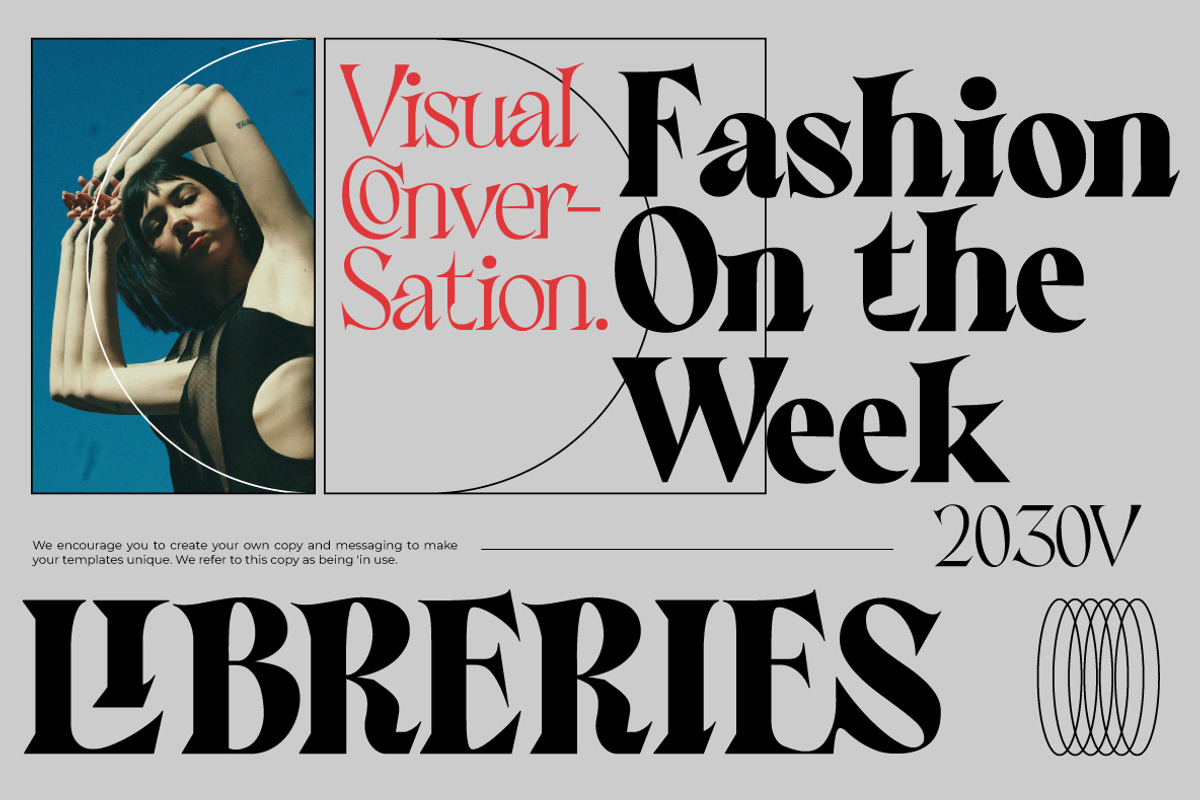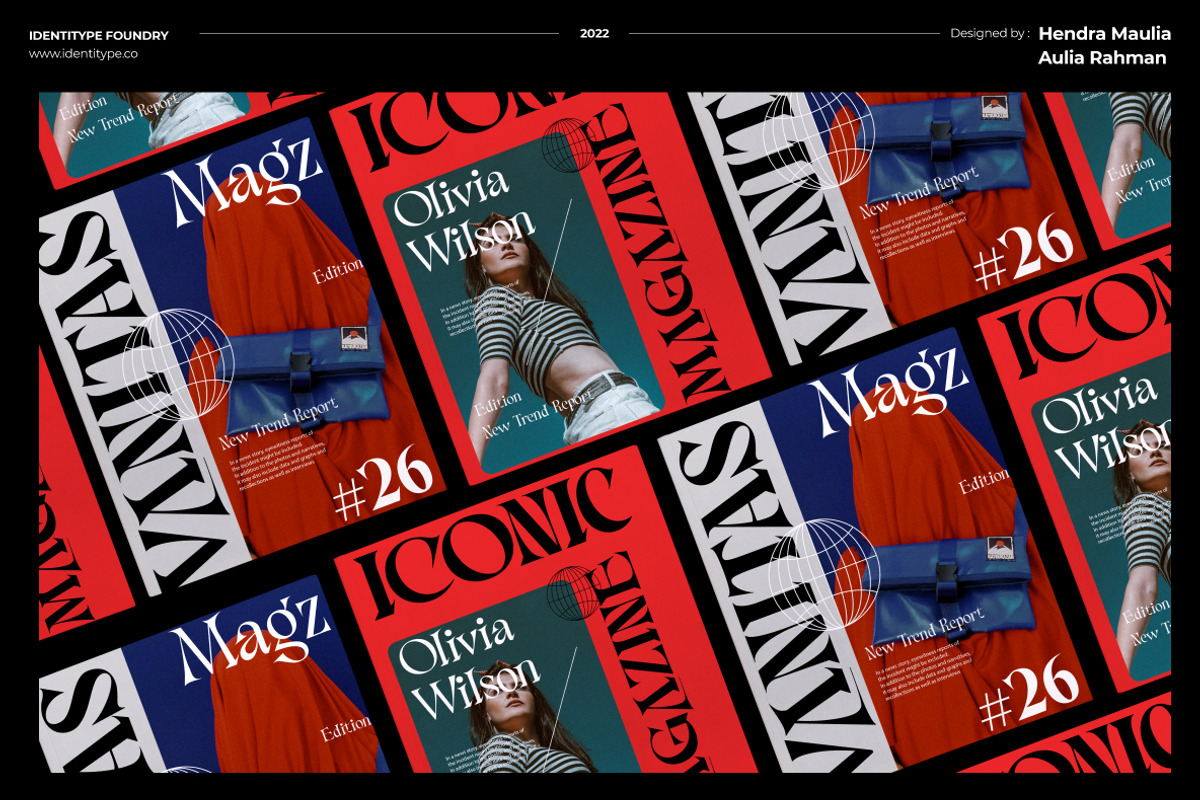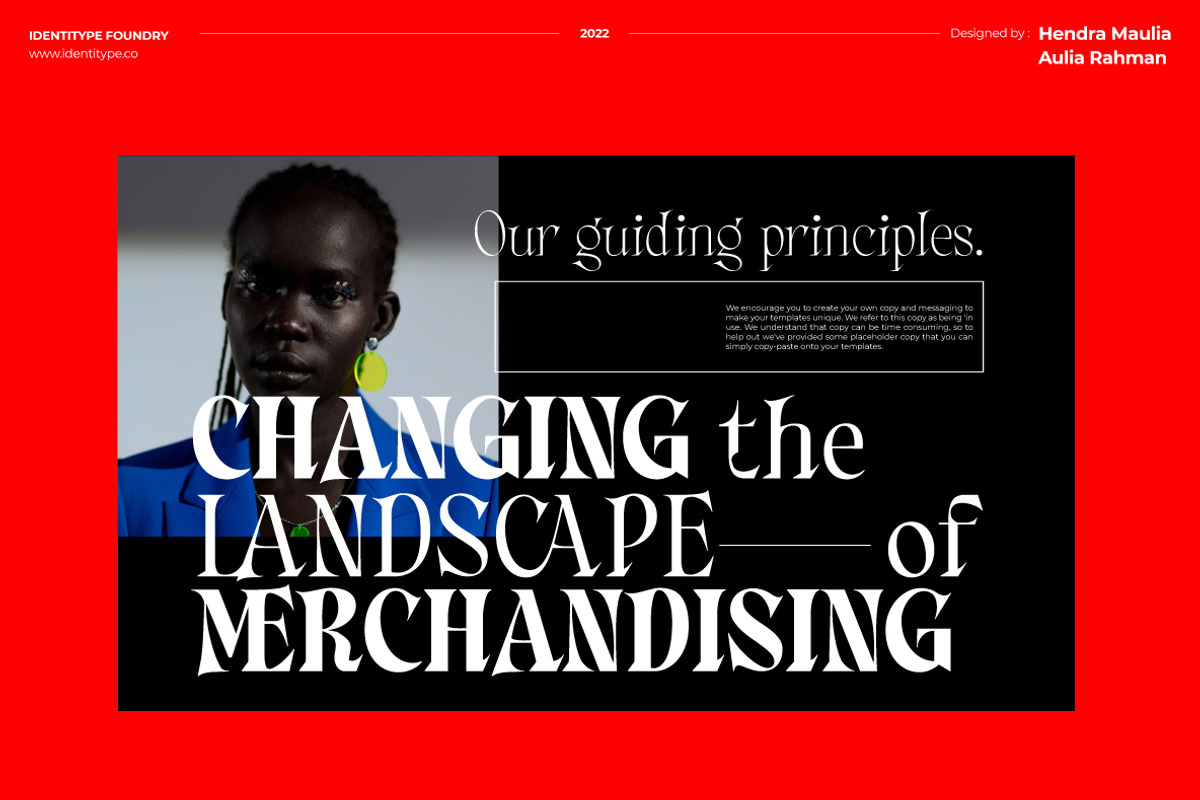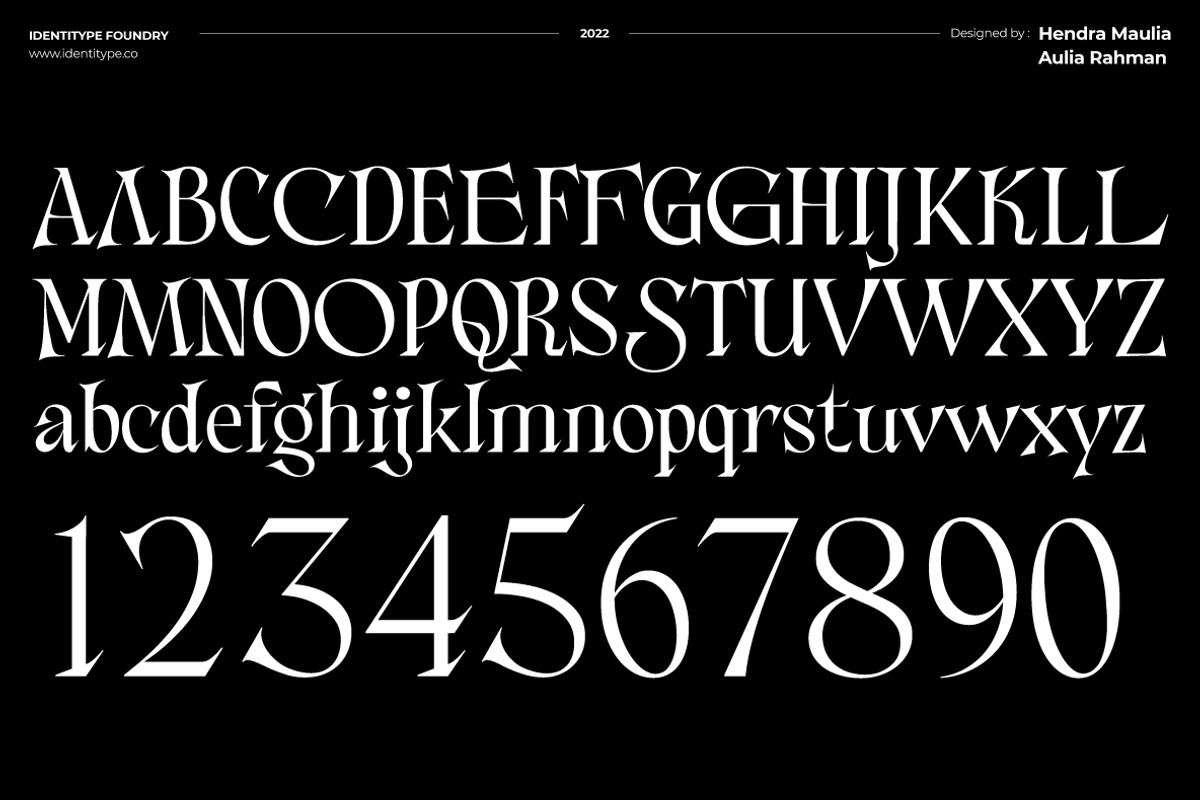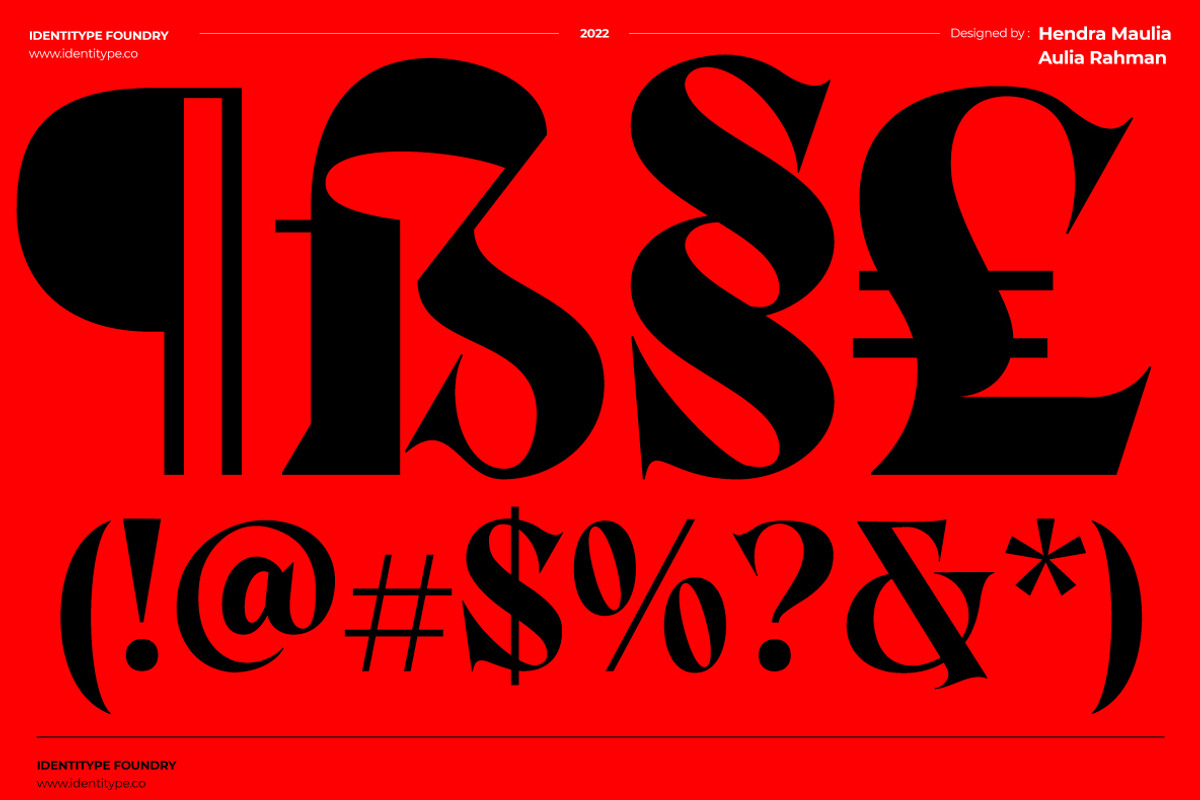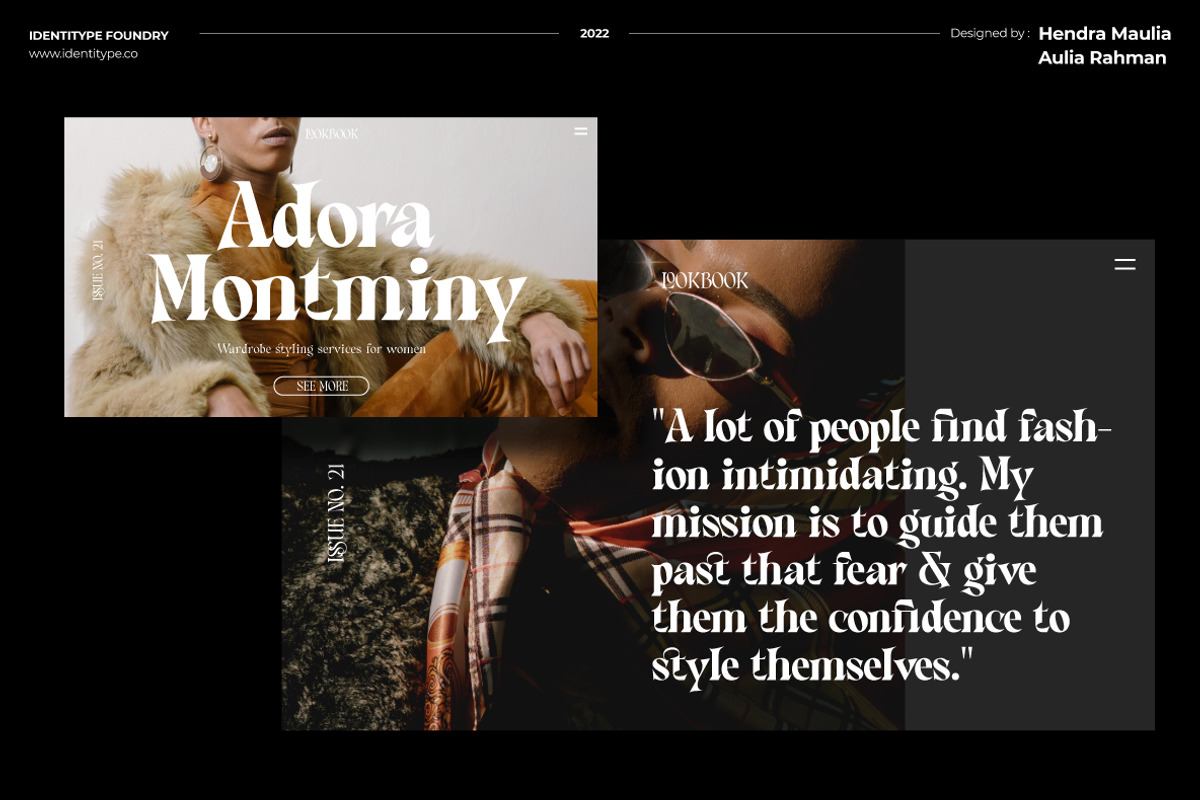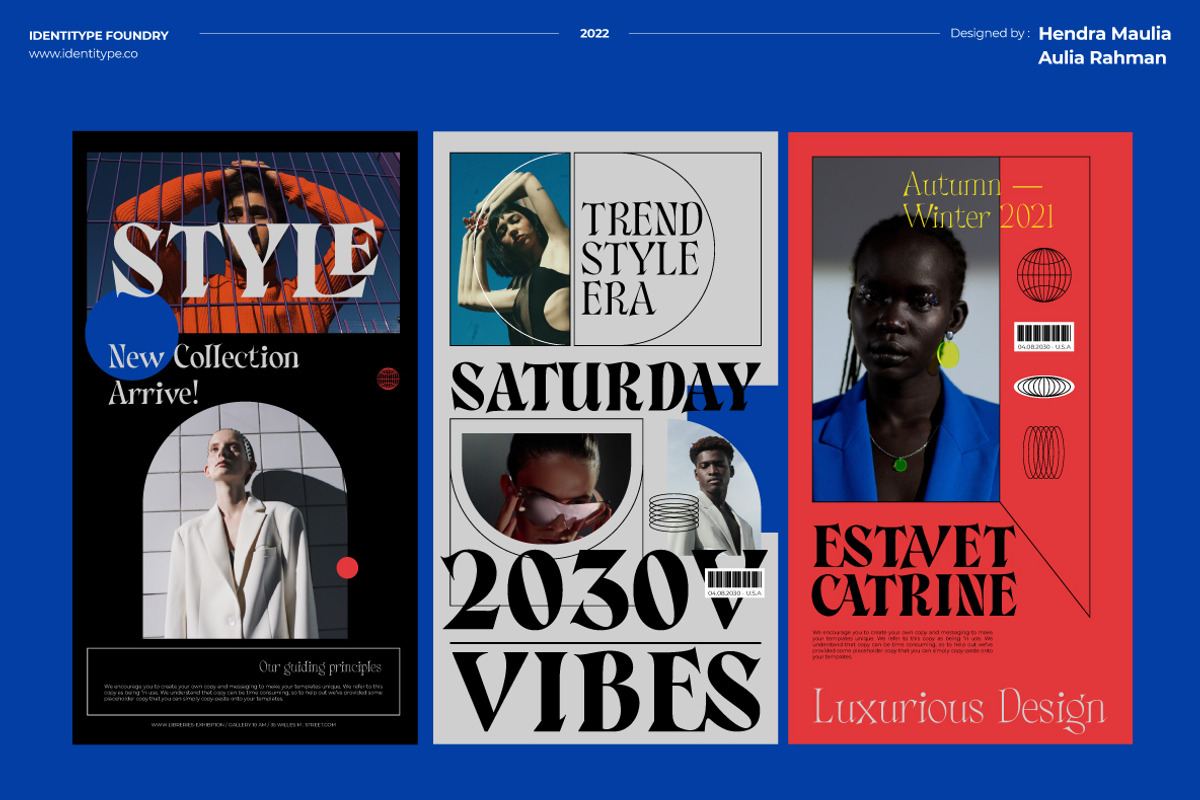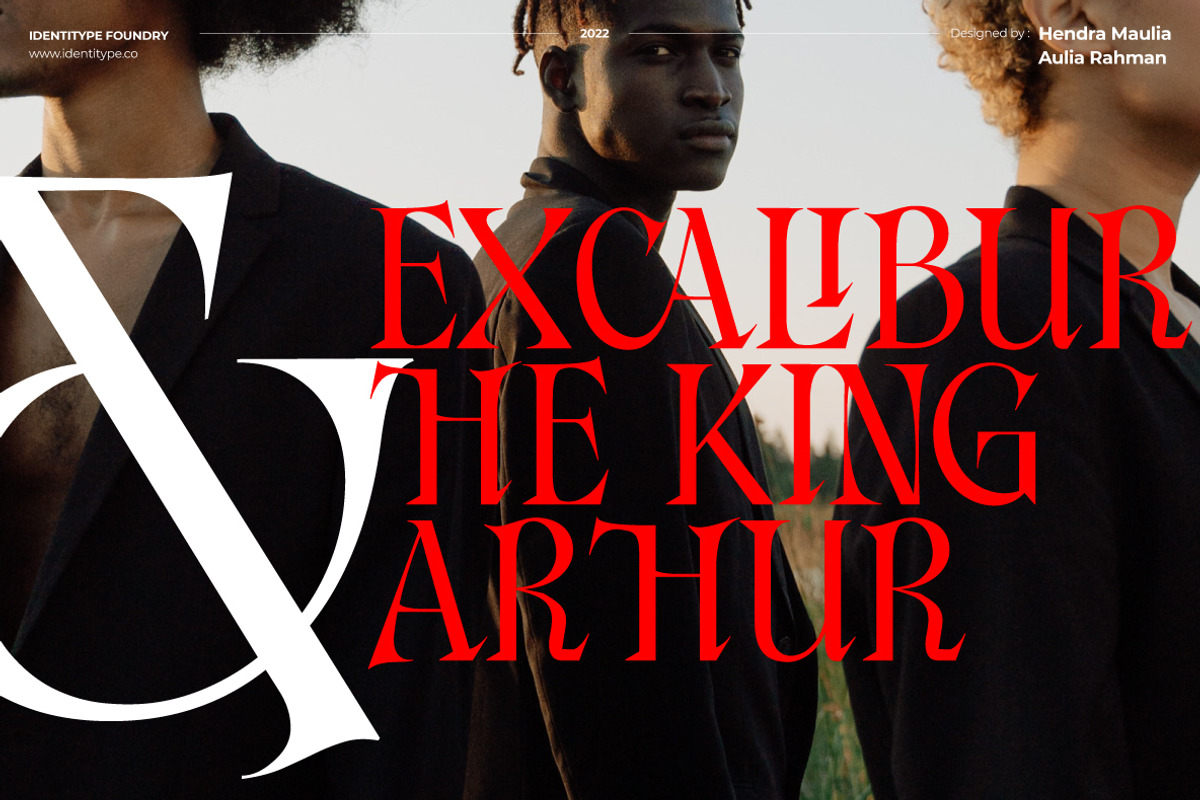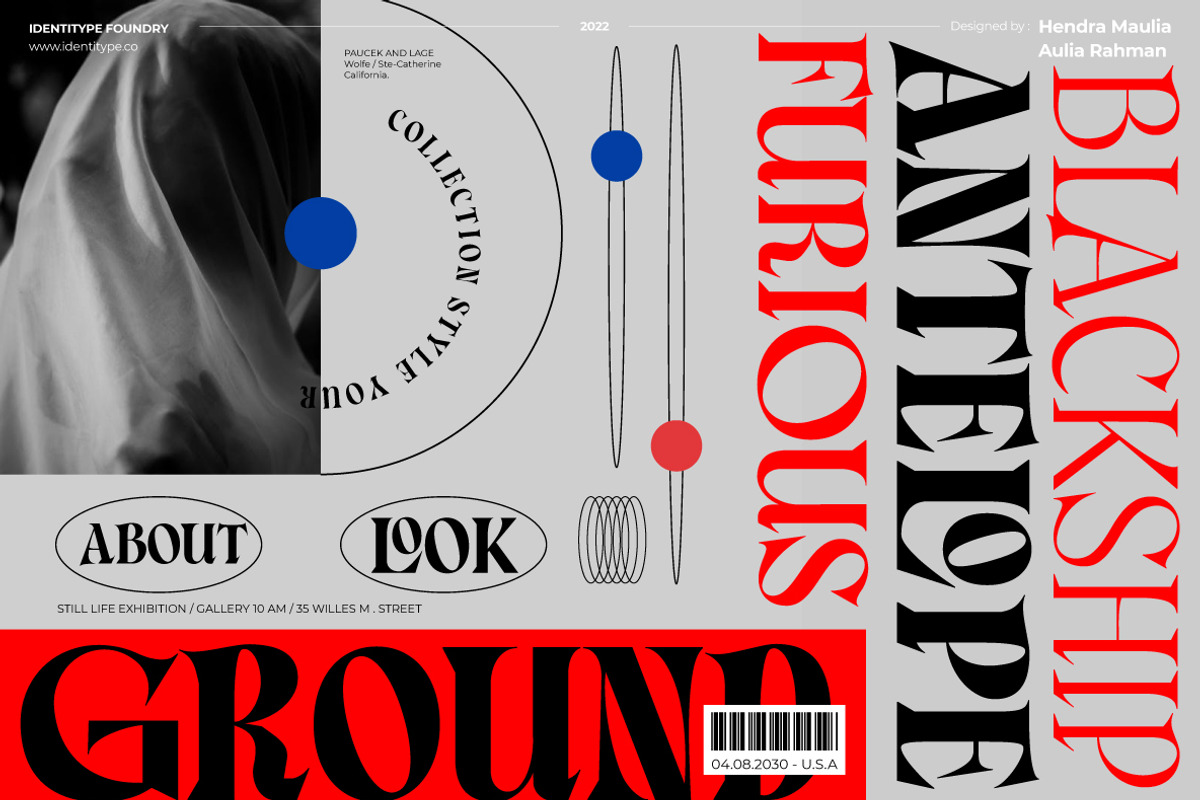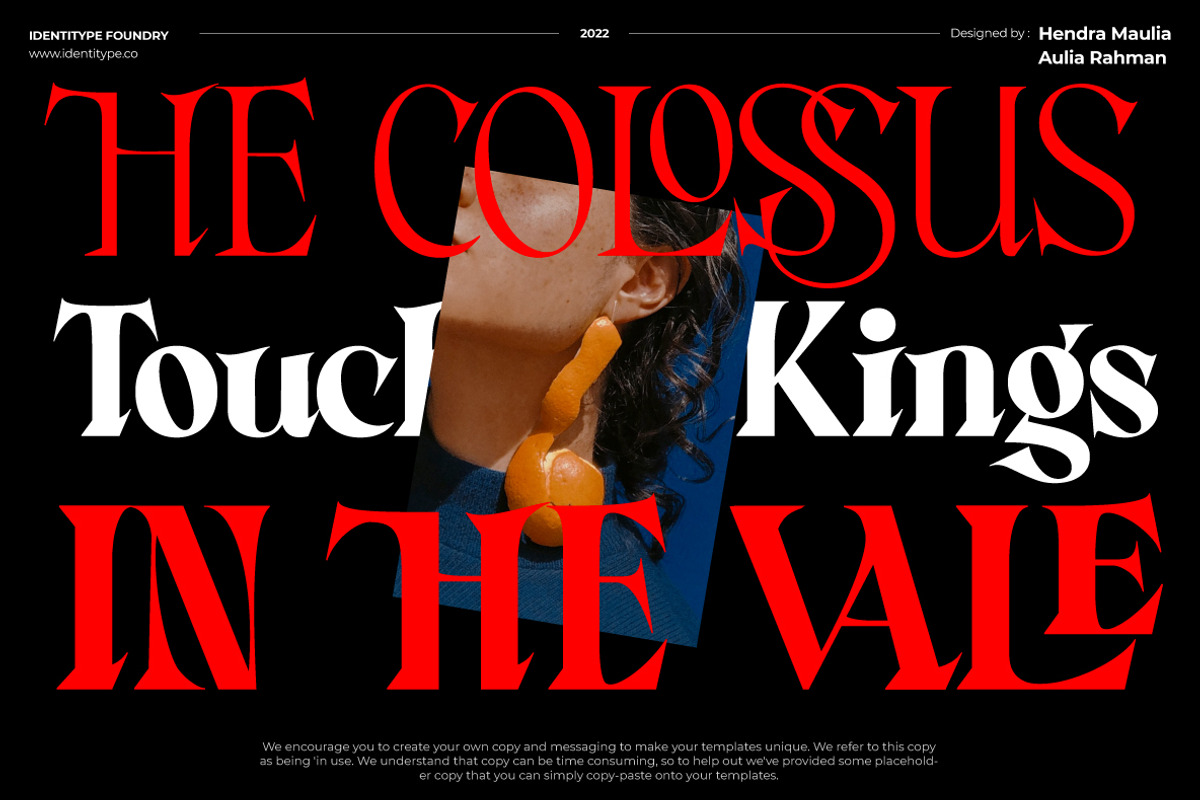
Consta - Premium Serif Font
Consta Display Font Family
Consta is a sophisticated display serif designed to make a lasting impression. With its refined high-contrast letterforms, graceful curves, and contemporary elegance, Consta brings luxury and confidence to every design.
Perfect for branding projects, fashion editorials, cosmetic packaging, premium logos, magazines, wedding stationery, and modern visual identities, Onsta delivers striking typography that feels both timeless and contemporary.
The family includes multiple carefully crafted weights, allowing designers to create expressive typography with seamless hierarchy while maintaining a consistent visual language.
Whether you're creating a luxury brand identity or an elegant editorial layout, Consta gives your work a polished and premium appearance.
Multiple Font Weights
High-Contrast Display Serif
Consta is created for designers who appreciate clean sophistication, modern elegance, and typography that effortlessly elevates premium brands.